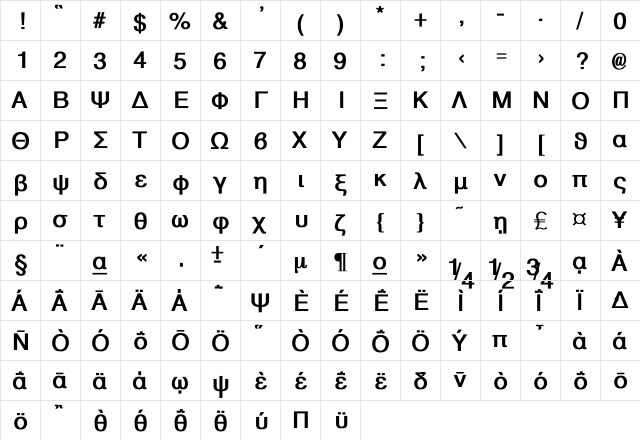
Athens Greek Bold
Design Context for Athens Greek Typeface
Athens Greek takes a measured approach to typography — its balanced proportions and neutral character make it a reliable workhorse for both digital and print work. Its bold stroke weight gives it real presence on the page.